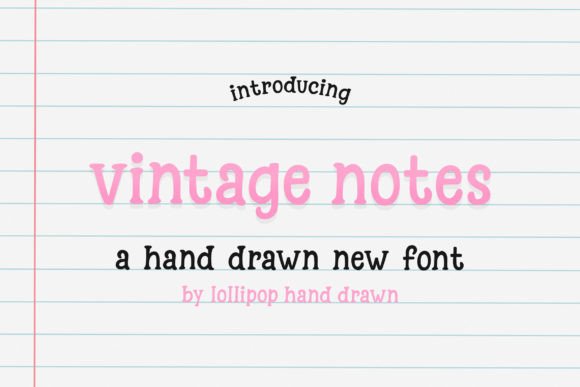
Introducing the delightful and charming Vintage Notes Font! This exquisite handwritten serif font is the perfect addition to any design project, whether it's for personal or commercial use. Created by the talented Lollipop Hand Drawn, this font family is a must-have for anyone in search of the best fonts for SVG designers.
Vintage Notes Font is designed to add a joyful touch to your creative ideas. It exudes a charming and welcoming vibe that is perfect for all types of designs. Whether you're creating invitations, greeting cards, logos, or posters, this font will make your work stand out from the rest.
One of the best things about Vintage Notes Font is its versatility. It is an ideal choice for all types of designs, from vintage and retro to modern and trendy. Its handwritten style gives it a unique and personal touch, making it perfect for adding character and personality to your designs.
With Vintage Notes Font, you'll never run out of creative ideas. Its eye-catching style is perfect for highlighting important information, adding emphasis to certain words or phrases, and making your designs more engaging and memorable.